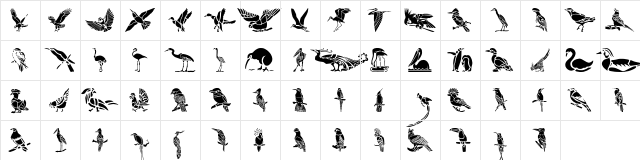
HFF Bird Stencil Regular
Design Context for HFF Bird Stencil Typeface
HFF Bird Stencil has the rough pragmatism of spray-painted stencil signage, adding a raw, street-level authenticity to designs.
A strong choice for packaging that needs edge, warehouse aesthetics, and rough-and-ready visual identities.
Pro Tip: Use HFF Bird Stencil at large sizes on packaging, posters, or apparel where the stencil cutaways read clearly. Avoid small sizes where those gaps become visual noise.